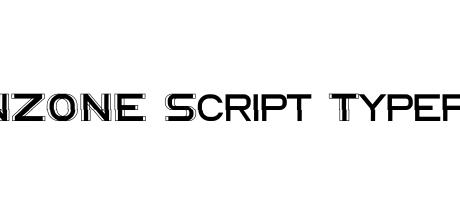
DANZONE Script Typeface
DANZONE Script Typeface: A bold, retro-futuristic font with a distinct, layered aesthetic. Its strong lines and slightly skewed characters evoke a sense of dynamic energy and playful rebellion. Perfect for headlines, logos, and projects needing a touch of edgy, vintage sci-fi flair. DANZONE commands attention.